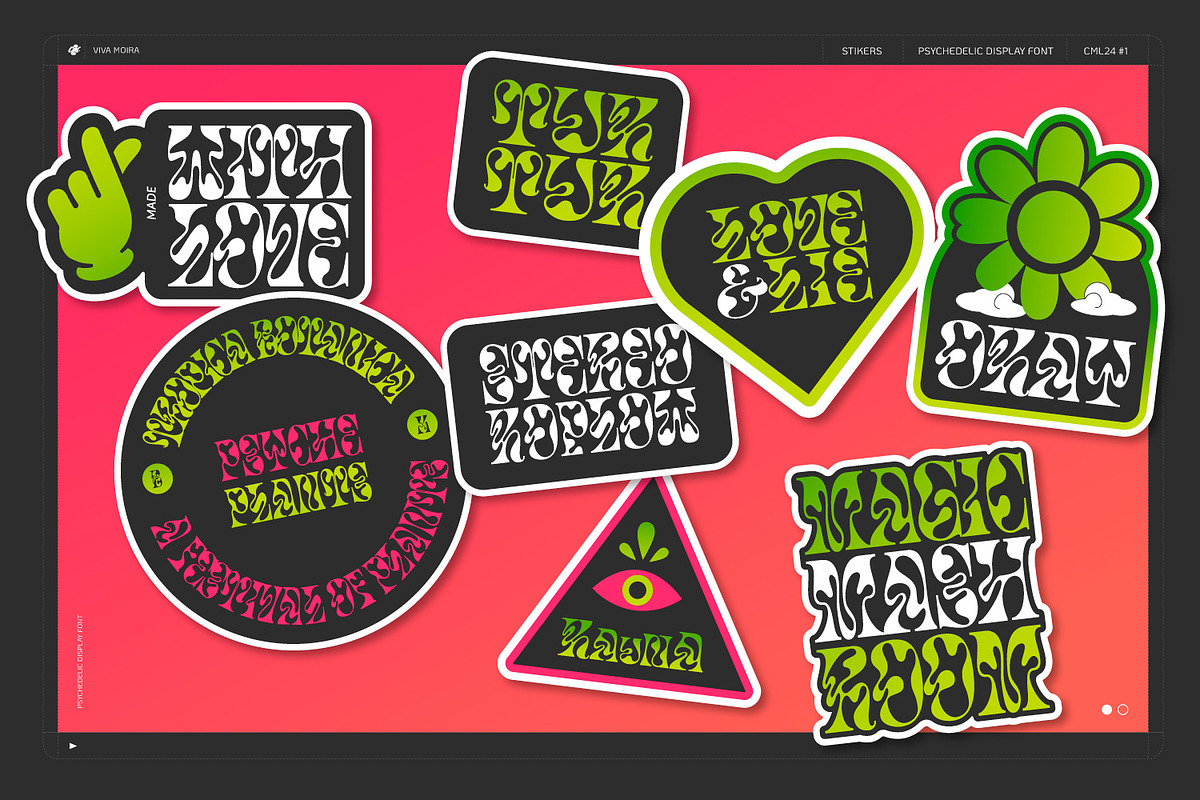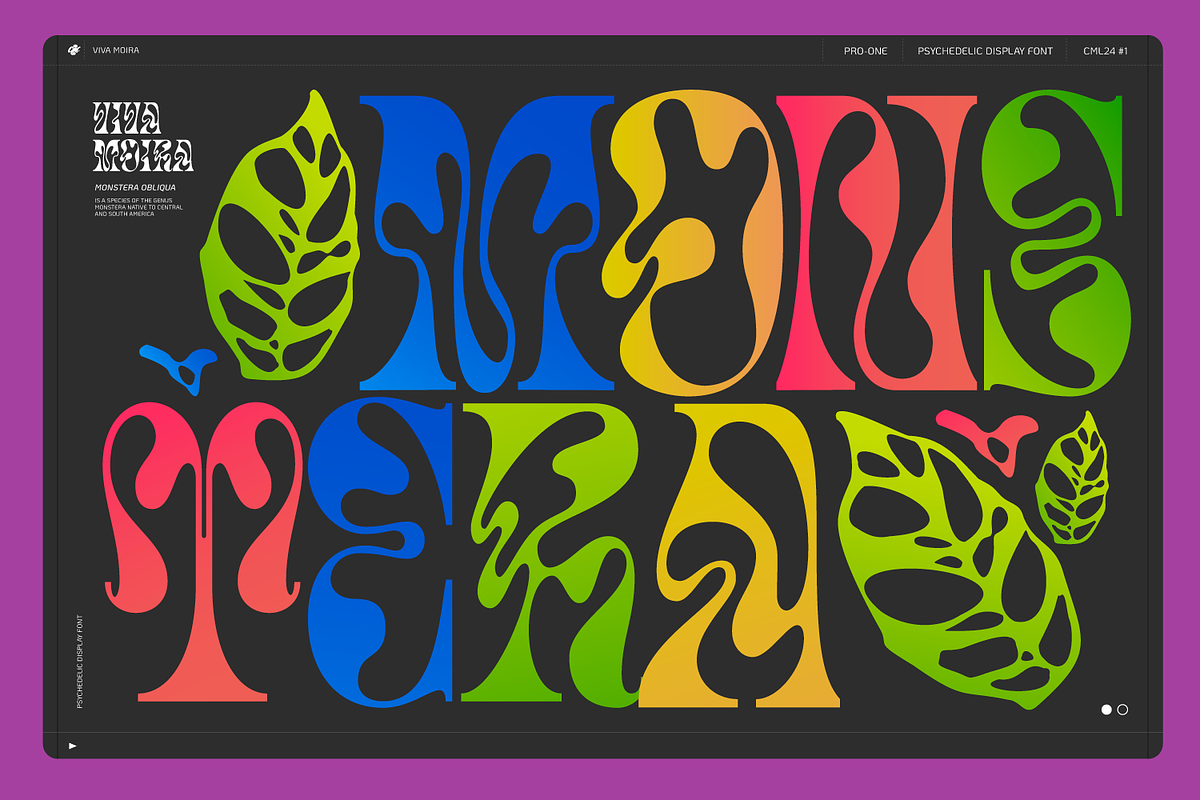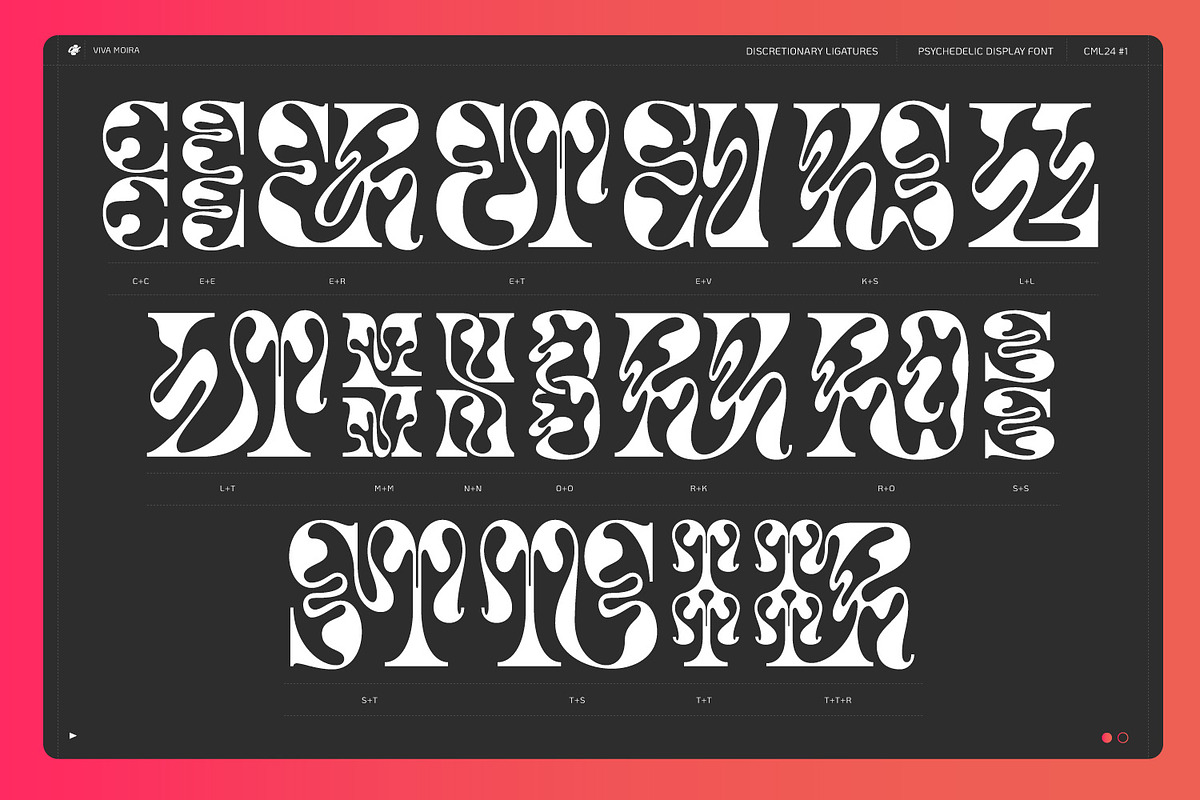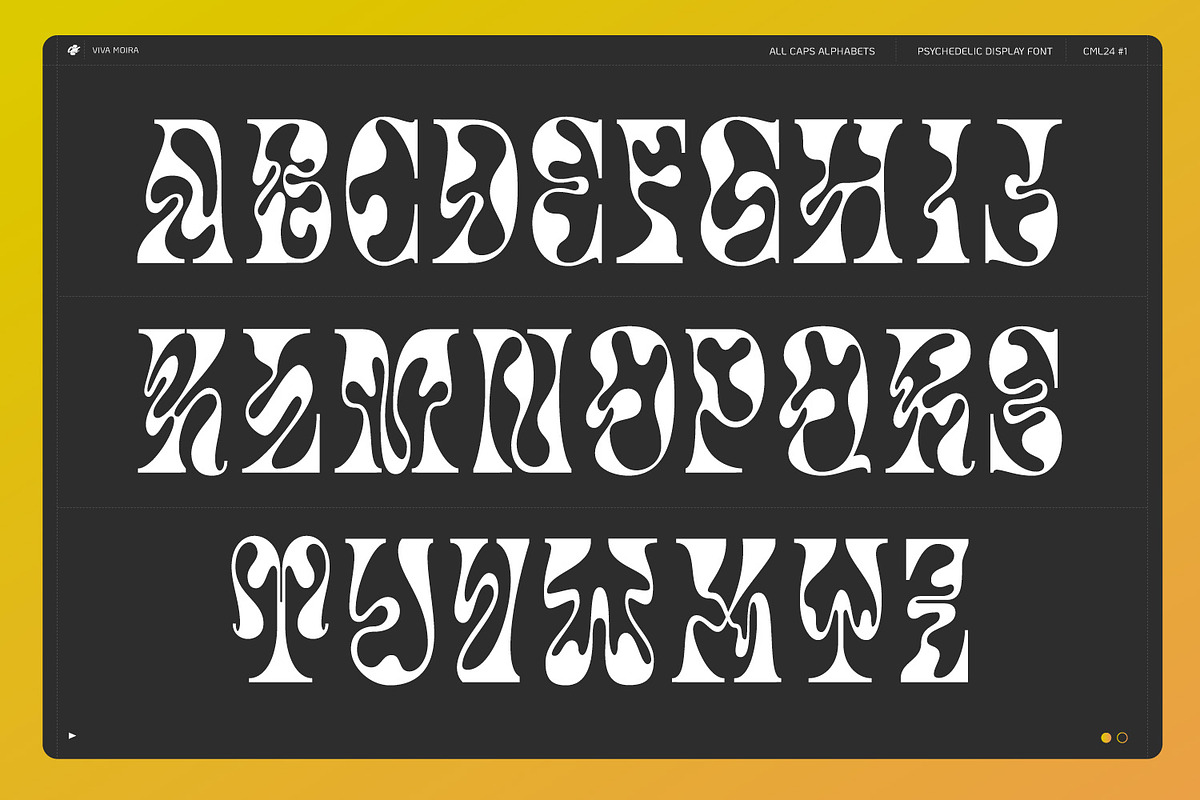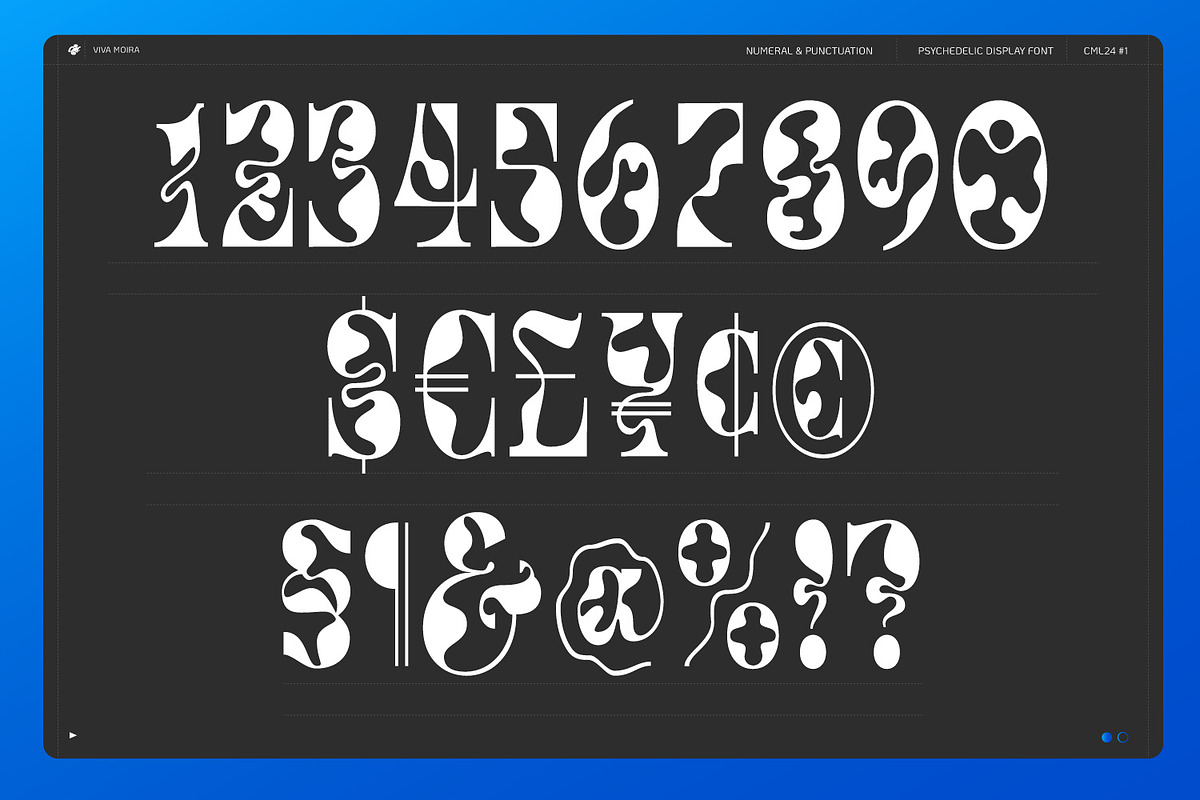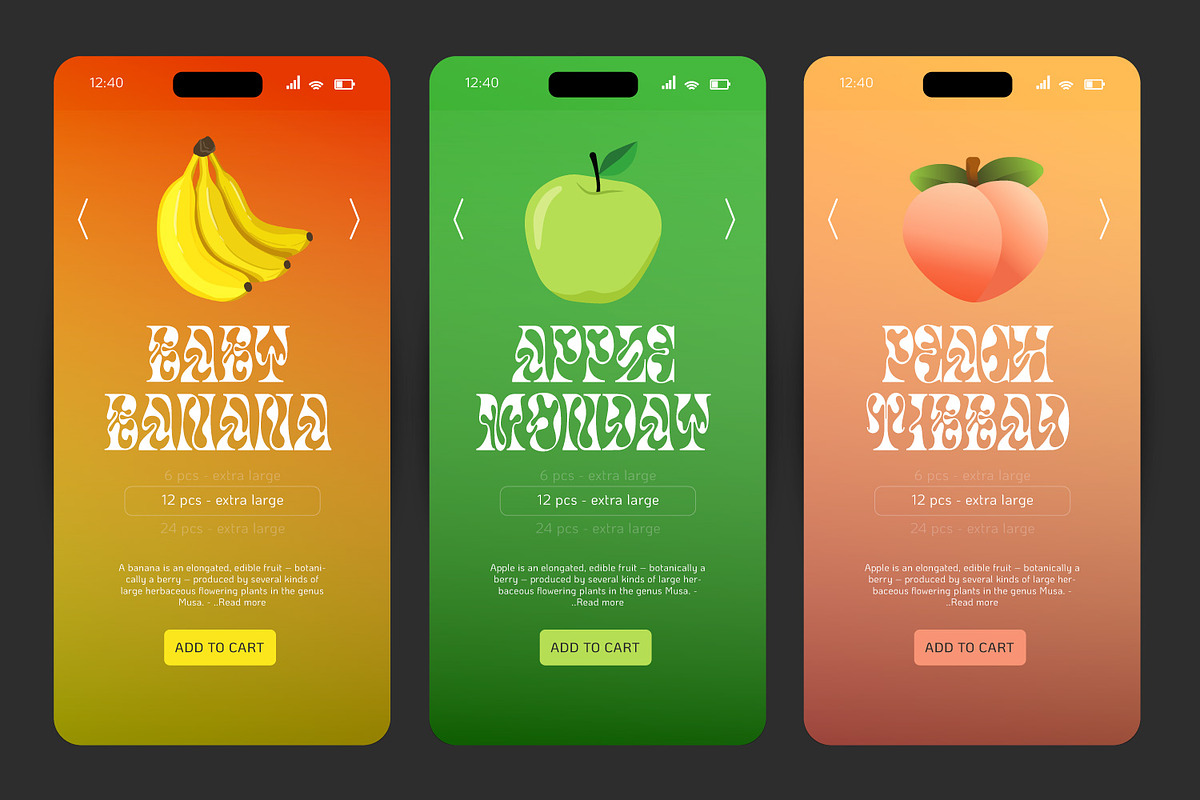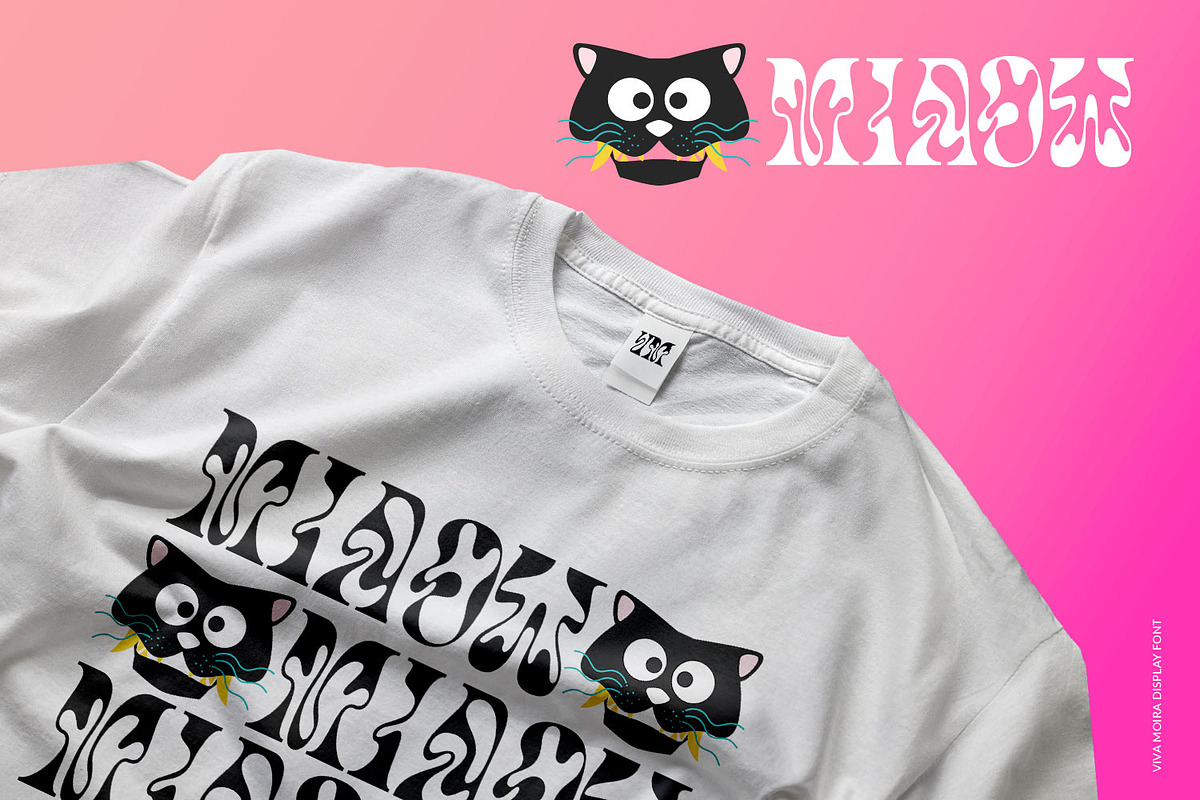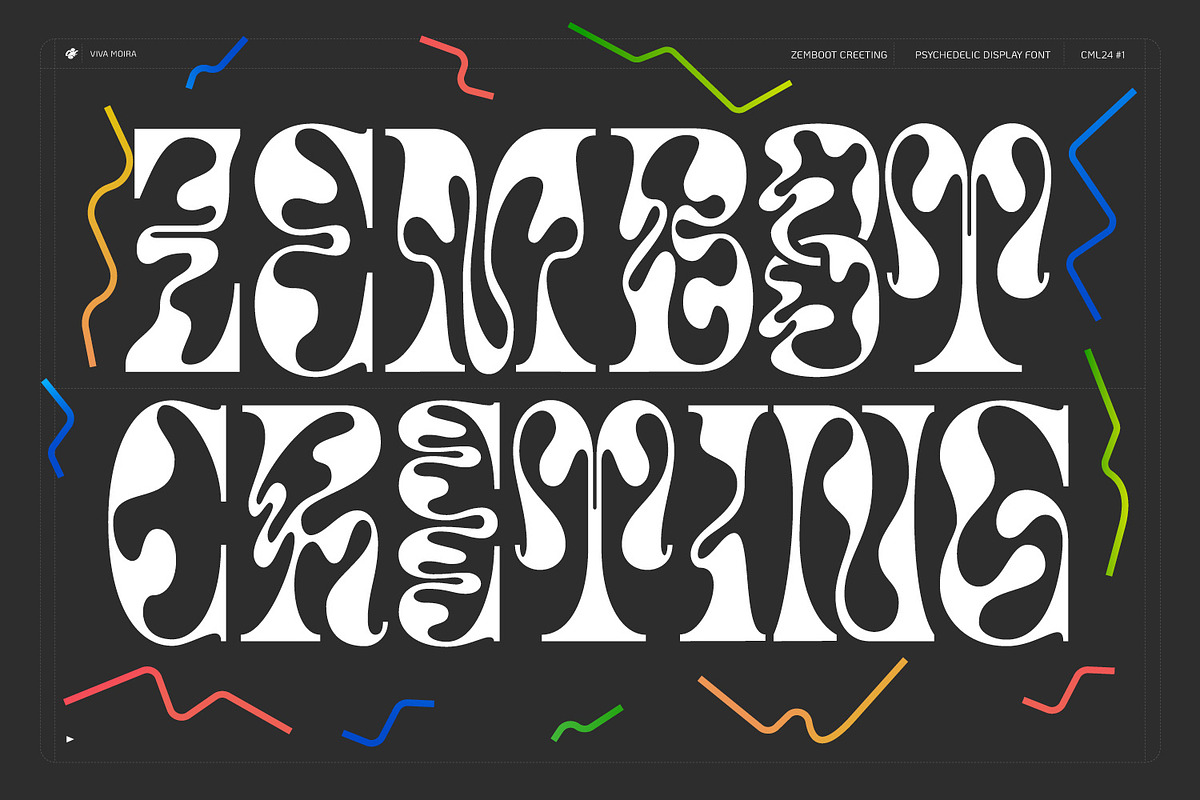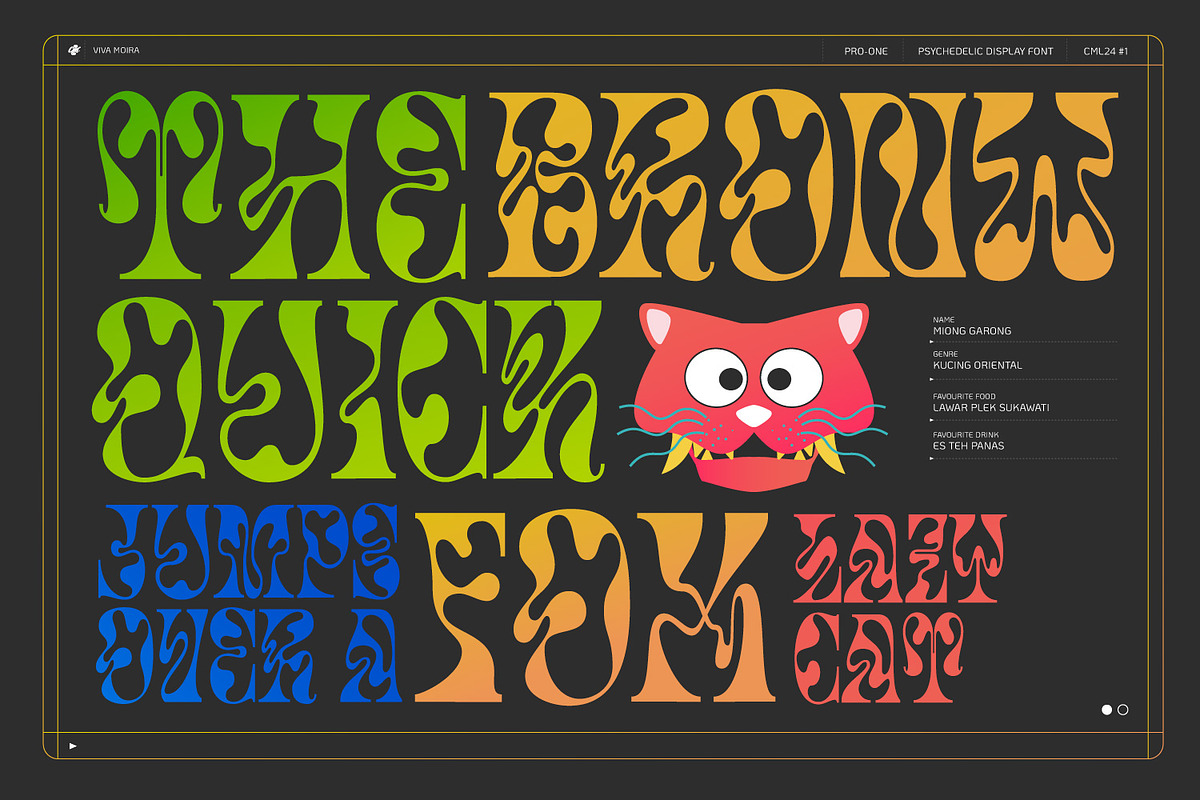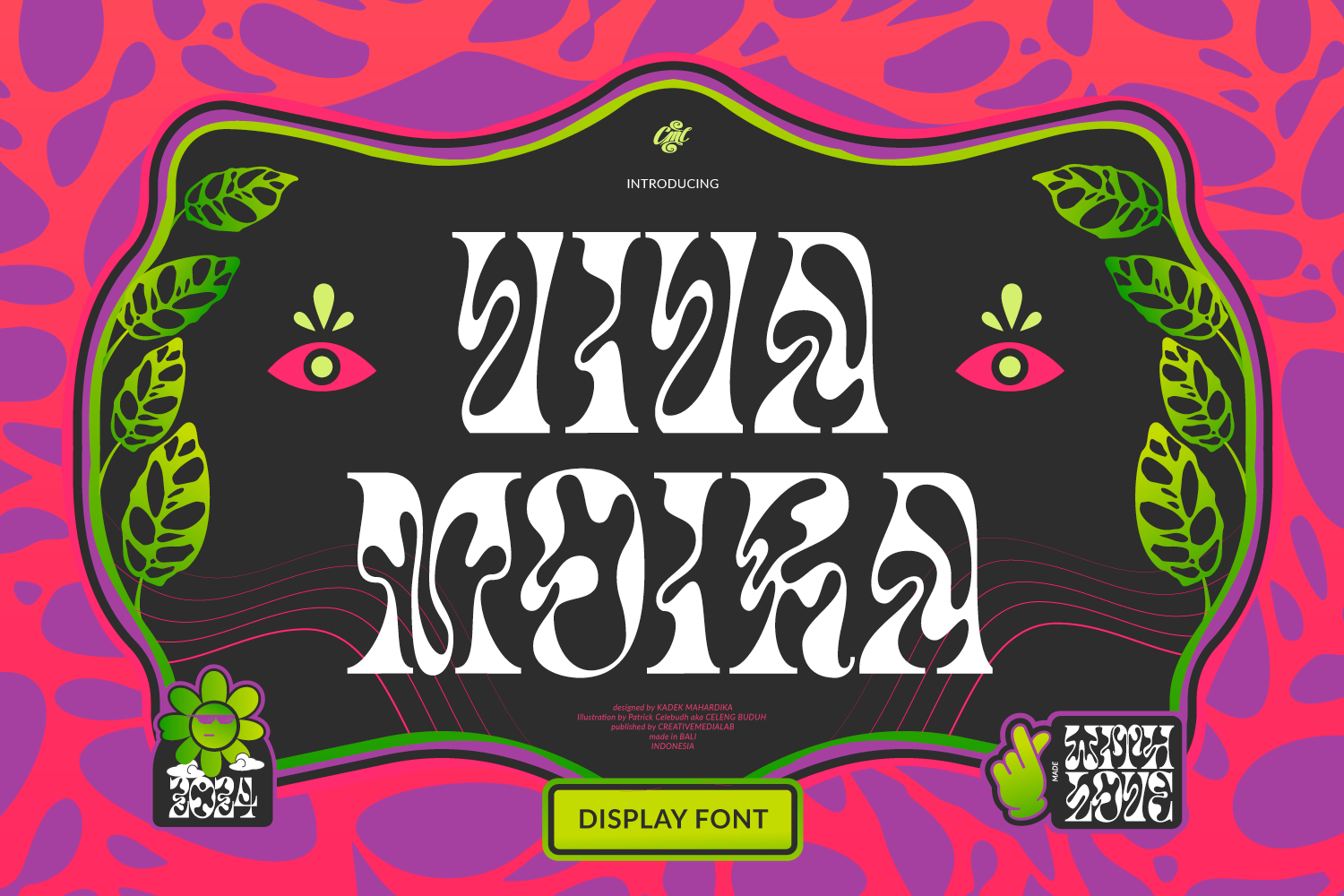
Viva Moira - Display font
Viva Moira is an experimental psychedelic display font inspired by the delicate and curled leaves of Monstera esqueleto. This font has an all-caps format with charmingly connected letters or ligatures, making it an ideal choice for posters, titles, and designs that require a distinctive and vibrant theme.